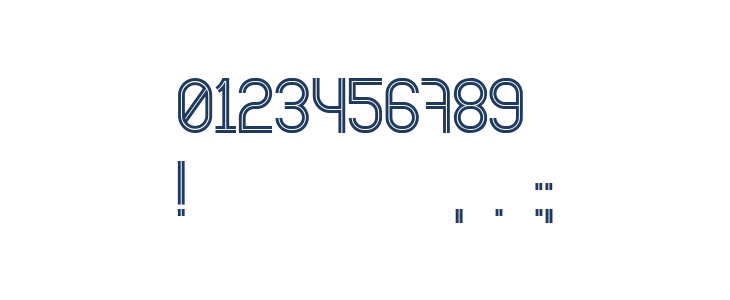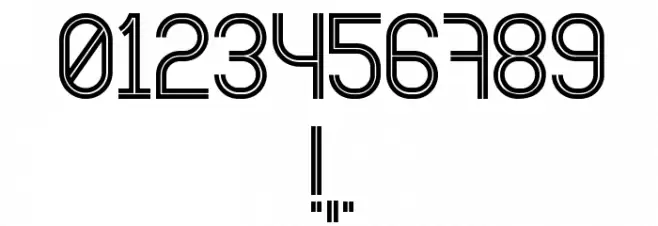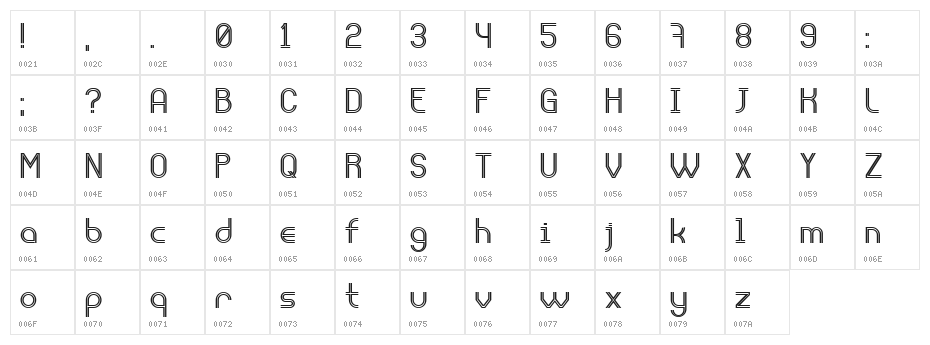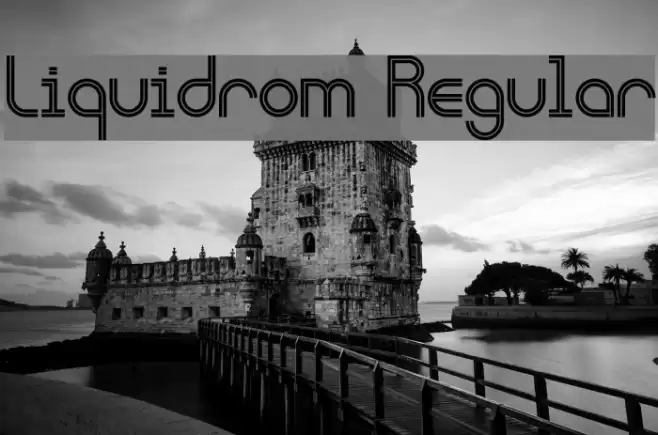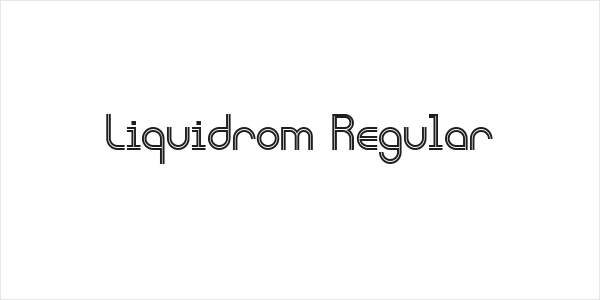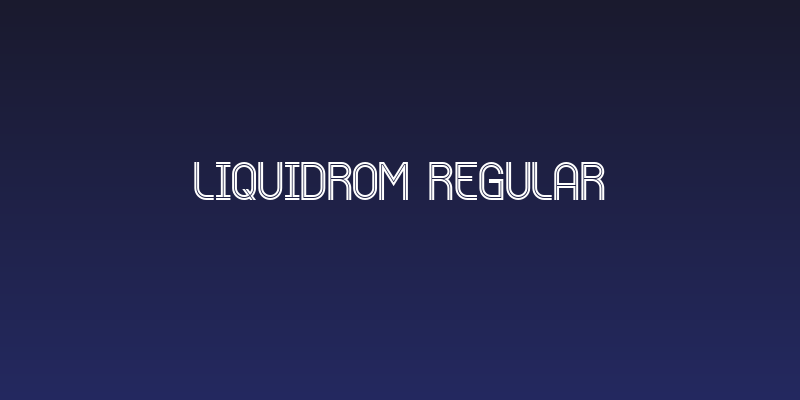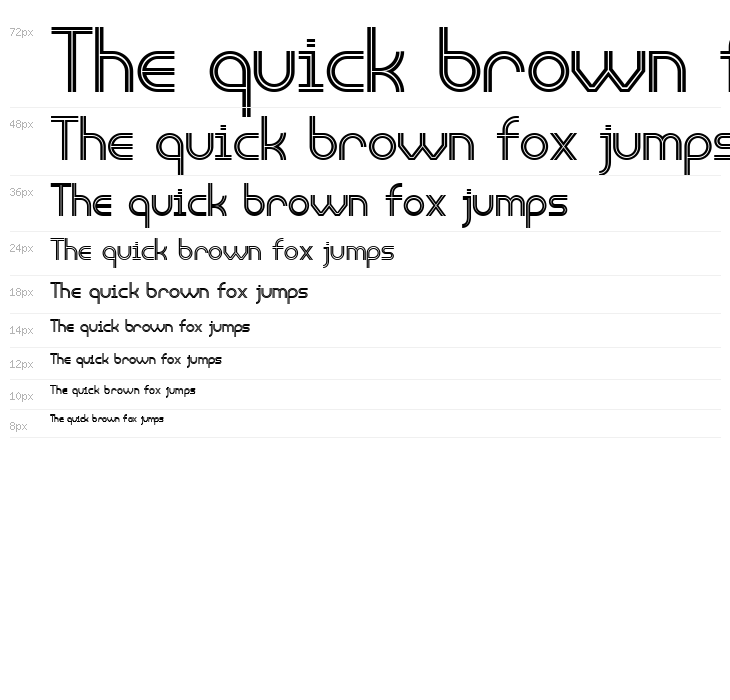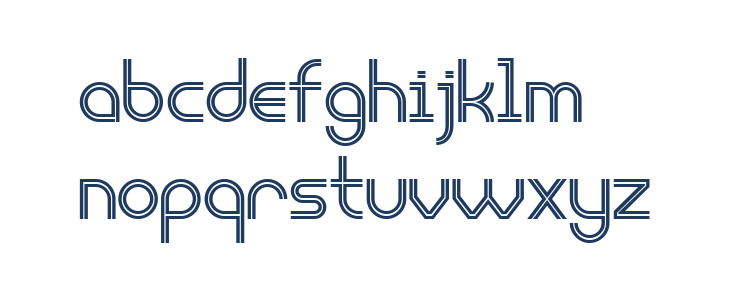
Liquidrom Regular Font
Liquidrom Regular Description
This font features a modern and geometric design with a distinct double-line structure that creates a sense of depth and intricacy. The uppercase and lowercase letters maintain a consistent style, characterized by clean lines and rounded edges. The numerals and special characters follow the same aesthetic, ensuring uniformity across all glyphs. Its unique style makes it stand out, offering a contemporary yet slightly retro feel. The font's design is both artistic and functional, making it suitable for various creative applications.
| Proposed Projects | Ideal for branding, posters, album covers, and digital artwork where a modern and artistic touch is desired. |